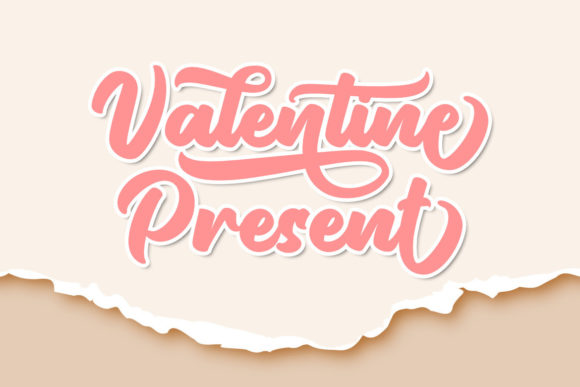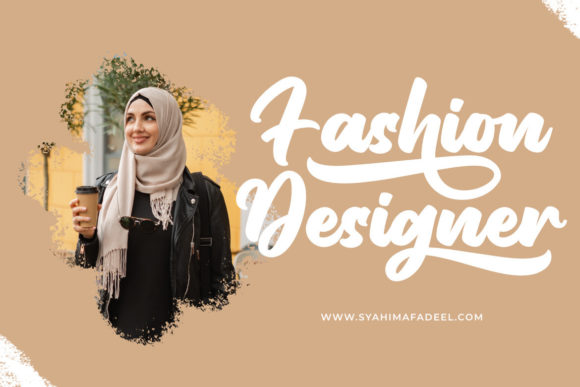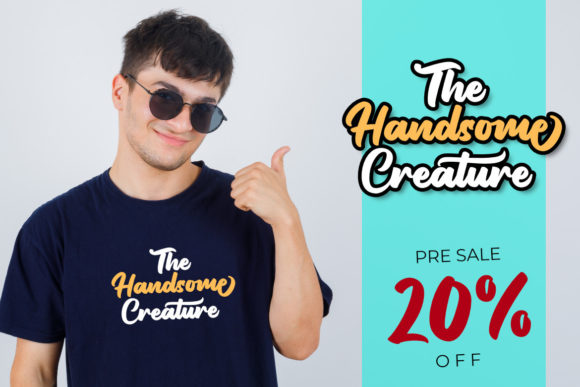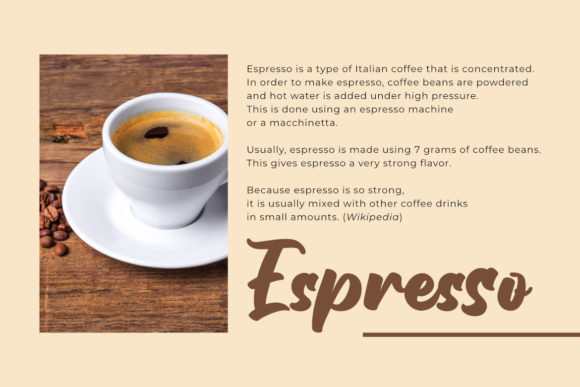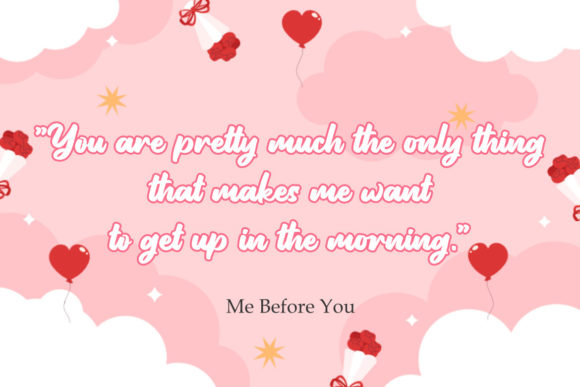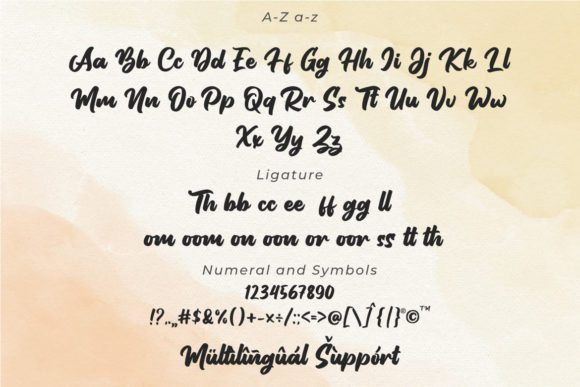
Introduction to Maulidah Script Font
Enter the Maulidah Script Font, a stunning handwritten font that is sure to become your new favorite design resource. With its elegant calligraphic influences and modern twist, this font is the perfect addition to any project looking for a touch of sophistication and high quality. And the best part? It’s available for a free download, so you can start using it in your creative endeavors right away.
Whether you’re working on a design project or simply looking to add some flair to your social media graphics, the Maulidah Script Font is a valuable asset that’s sure to deliver. With its transparent background and PUA encoded glyphs, you can access all of the swashes and stylistic variations with ease, making it the perfect choice for any creative project.
Key Features of Maulidah Script Font
- High-quality design suitable for various creative projects, including invitations, posters, and social media graphics.
- Features a unique, handwritten style with elegant and artistic flair, perfect for adding a touch of sophistication to your designs.
- Comes with a transparent background, allowing for seamless integration with your chosen design elements.
- Includes a range of characters, including uppercase and lowercase letters, numbers, and punctuation marks, making it a versatile font for various applications.
- Designed with a medium to large font size, ideal for use in titles, headings, and other prominent design elements.
Honest Review: Maulidah Script Font
I recently had the chance to experiment with the Maulidah Script Font, and I must say, it’s a wonderful addition to any design project. ✨ This beautiful script font is perfect for creating elegant and sophisticated designs, from wedding invitations to event branding.
- What works well: The Maulidah Script Font has a lovely, flowing style that adds a touch of sophistication to any design. The font is also highly customizable, making it easy to adjust the size, color, and spacing to fit your needs.
However, there are a few limitations to consider: ⚠️ The font may not be suitable for smaller text sizes, as it can become difficult to read. Additionally, the transparent background option can sometimes be a bit finicky, but this is a minor quibble.
Overall, I’m really impressed with the Maulidah Script Font. It’s a high-quality design resource that’s perfect for creative projects, and its free download option makes it an excellent choice for anyone looking to add some elegance to their designs.
Tips for Getting the Most Out of Maulidah Script Font
For optimal results, use the Maulidah Script Font in a design that requires a creative touch. This font is perfect for creating a transparent background or overlay effect. You can also experiment with different font sizes and colors to achieve the desired design effect.